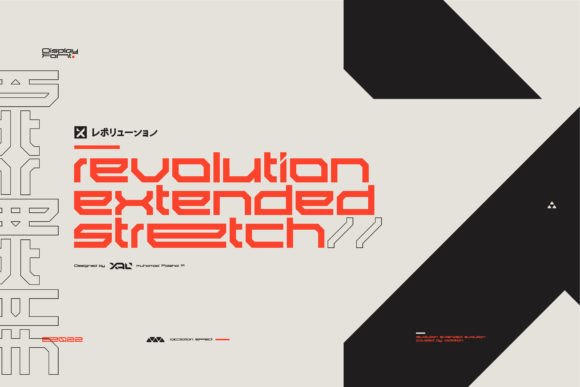
Introducing Revolution Extended Stretch Font - A Typographic Masterpiece That Radiates Innovation and Style!
In a world where creativity knows no bounds, fonts serve as the building blocks of visual communication, shaping words into works of art. Among this vast realm of typographic wonders, Revolution Extended Stretch Font stands out as a celestial beacon of innovation and style, ready to transform your digital designs into captivating masterpieces.
Born from the creative forge of XAL studio, this display font is an audacious departure from the ordinary, boasting a captivating design inspired by the enigmatic effects of a radiator leak. Picture a font that has undergone a metamorphosis, contorted and stretched by an invisible force, resulting in a unique expansion effect that commands attention.
With Revolution Extended Stretch, prepare to embark on a typographic odyssey that defies convention. Its distinctive character dances across the screen, captivating audiences with its enigmatic aura. Unleash your imagination and harness the font's inherent charm to craft designs that resonate with your audience, leaving an indelible mark on their minds.
The beauty of Revolution Extended Stretch lies in its duality. It effortlessly blends a sense of futurism with a nostalgic charm, making it a versatile choice for a myriad of creative endeavors. Whether you're crafting eye-catching display ads, designing logos that exude personality, or creating social media posts that demand attention, this font delivers in spades.
Gone are the days of settling for mundane typography. Revolution Extended Stretch is your gateway to a world of boundless creativity, where every design tells a story and every word carries weight. Its carefully crafted glyphs, meticulously designed to evoke emotion and intrigue, will elevate your creations to new heights.
Don't let this typographic marvel pass you by. Embrace the Revolution Extended Stretch Font and unlock a universe of creative possibilities. Let your designs bask in the glow of its innovative spirit and witness the transformative power of truly exceptional typography.